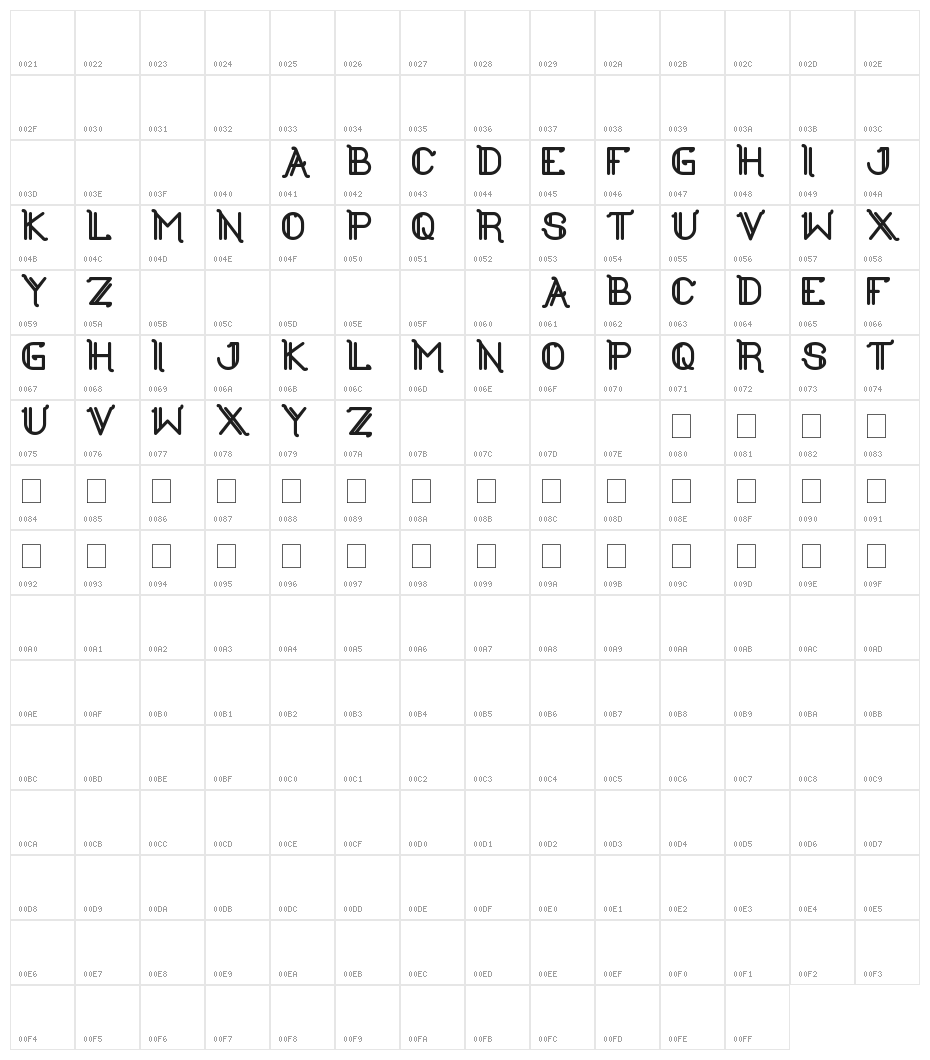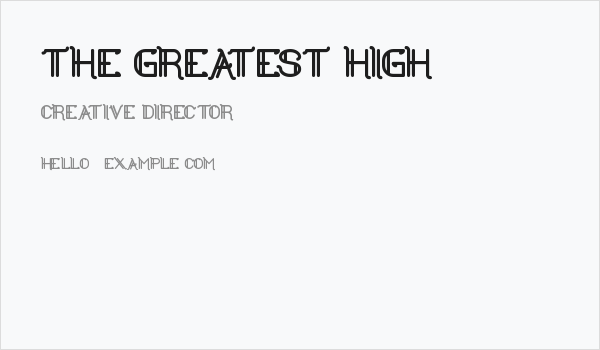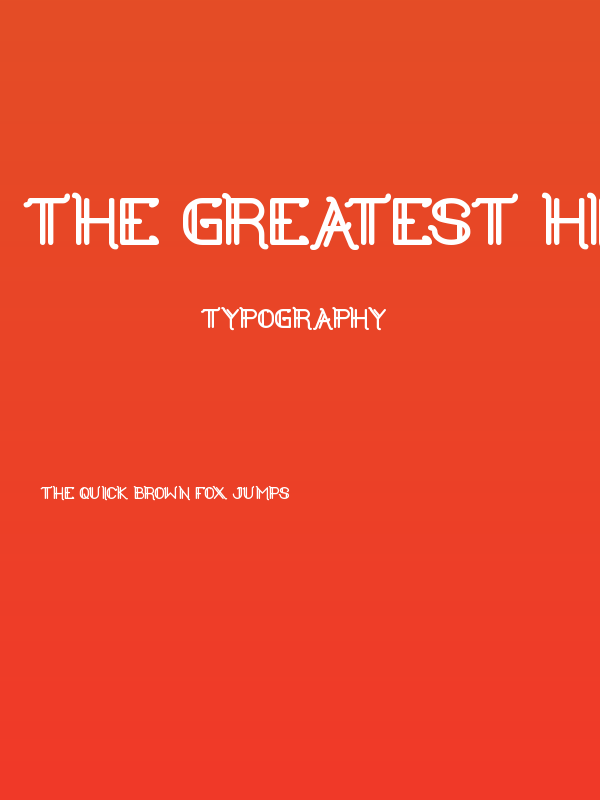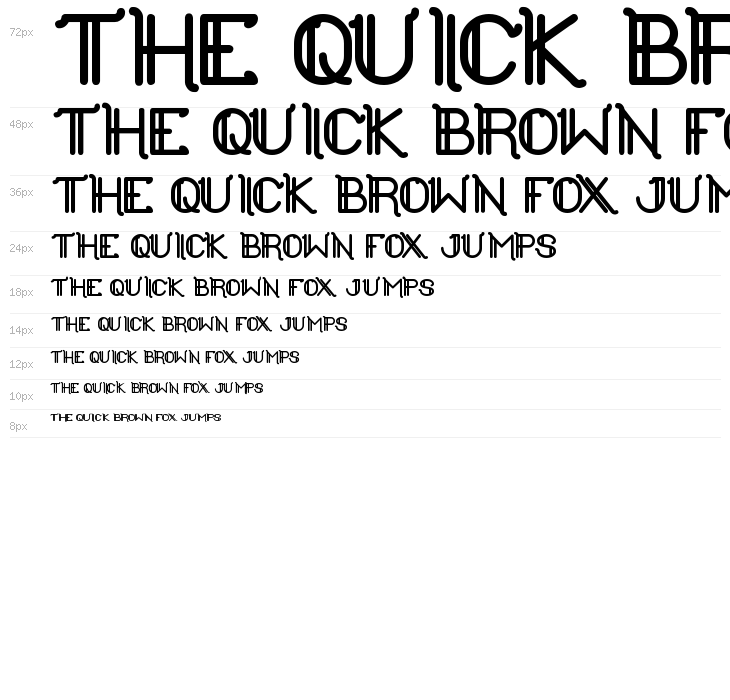
the greatest high Font
the greatest high Description
This font features a unique and decorative style with a modern twist. Each character is designed with a distinct double-line structure, giving it a bold and eye-catching appearance. The uppercase letters are consistent in height and width, creating a uniform look across the alphabet. The strokes are evenly spaced, providing a balanced and harmonious feel. The font's design is both artistic and functional, making it suitable for various creative projects. Its geometric elements and clean lines contribute to a contemporary aesthetic, while the intricate details add a touch of elegance. This font is ideal for making a statement in any design context.